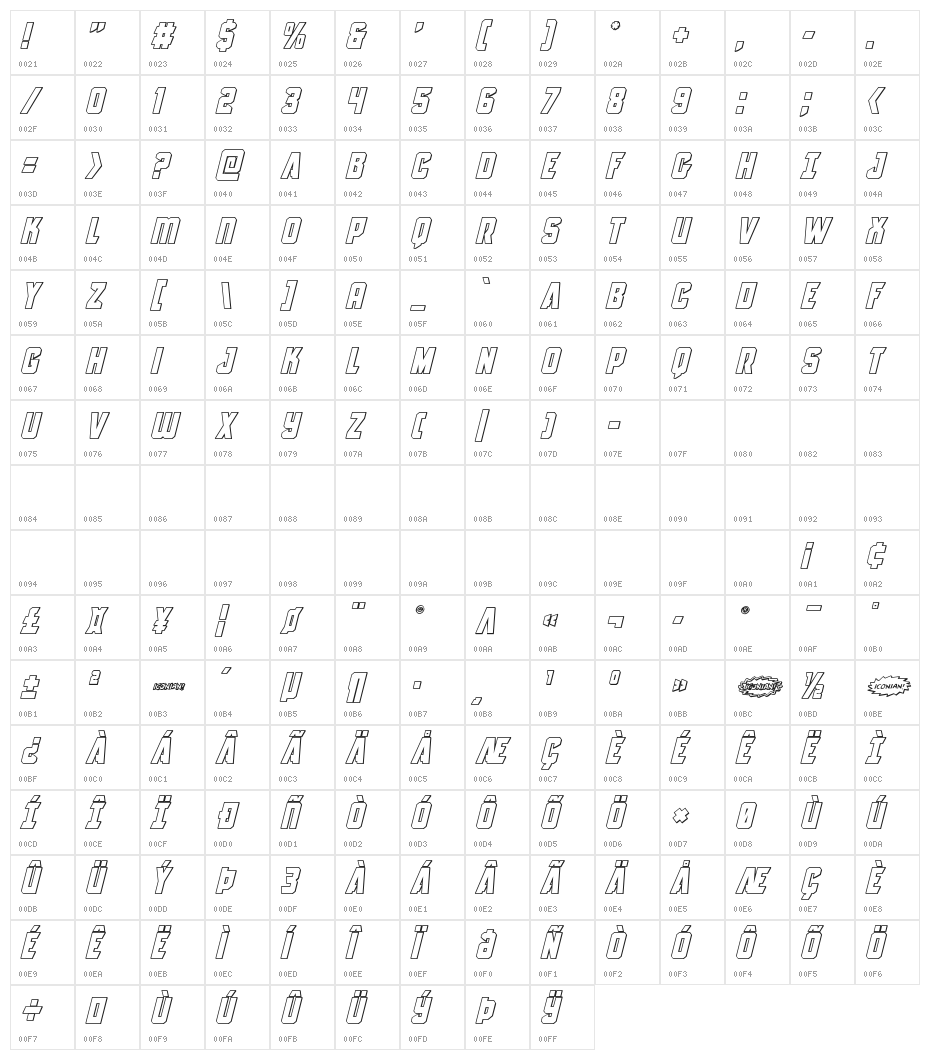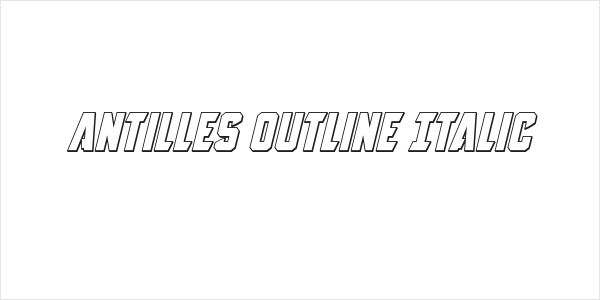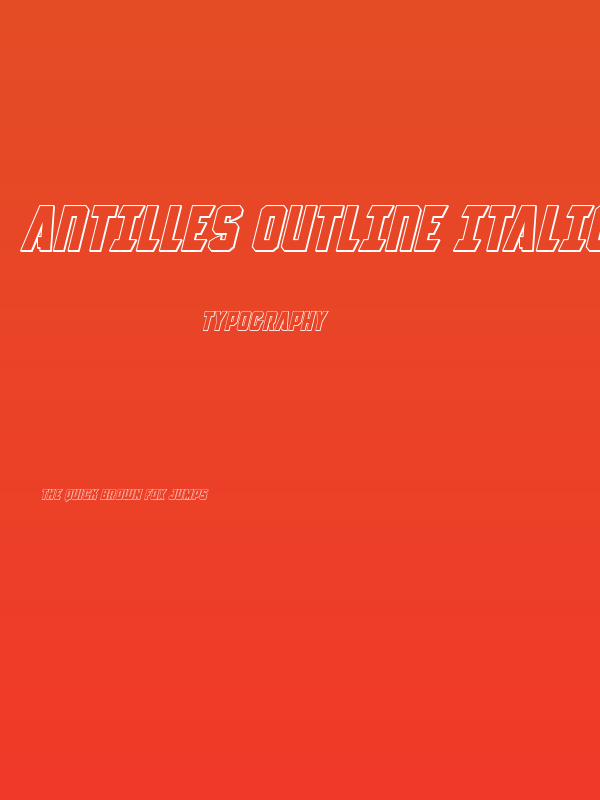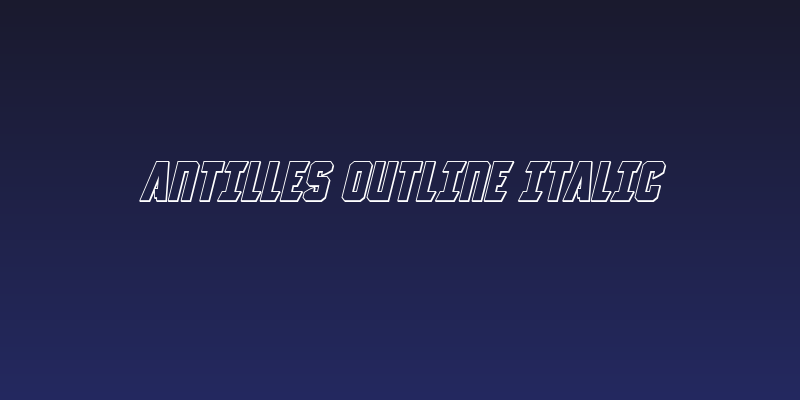
Antilles Outline Italic Font
Antilles Outline Italic Description
This font features a bold, outlined style with a distinct italic slant, giving it a dynamic and energetic appearance. The uppercase letters are angular and geometric, with sharp edges and a consistent stroke width that creates a strong visual impact. The numbers and special characters follow the same design principles, ensuring uniformity across all glyphs. The outlined nature of the font adds a layer of depth, making it suitable for eye-catching designs. Its modern and decorative style is ideal for projects that require a bold statement.
Proposed ProjectsIdeal for posters, headlines, logos, and branding materials that require a striking and modern look.